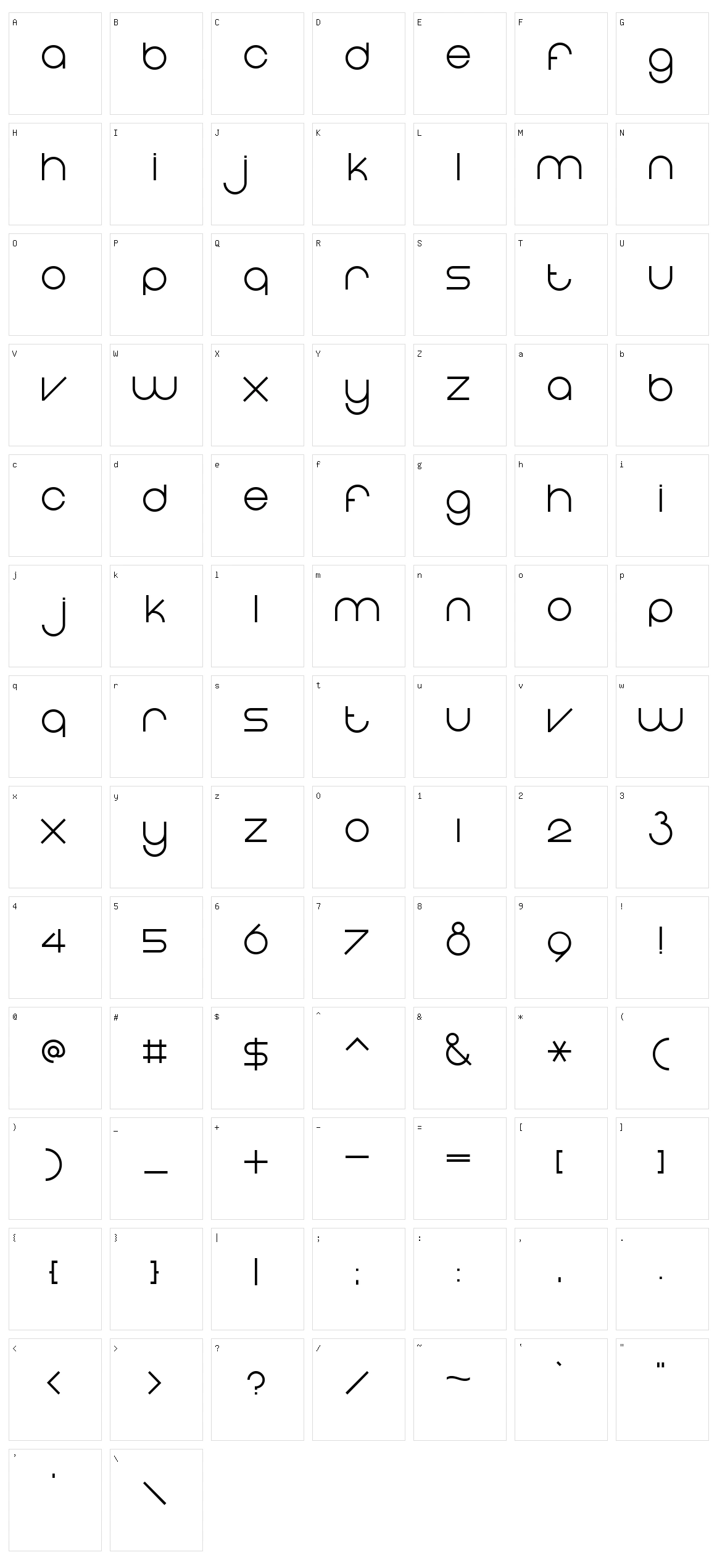
The free font Eight One is carefully designed by Jerry Hodge, showcasing a thoughtful balance of creativity and usability and falls under the Sans serif font style. When you download the ZIP file, it contains only 90.19 KB of font files, making it lightweight and quick to download. Please review the license details below to understand permitted usage and distribution rights. If license information is not available, we recommend using this font for personal projects only or contacting the author directly for commercial usage permissions.